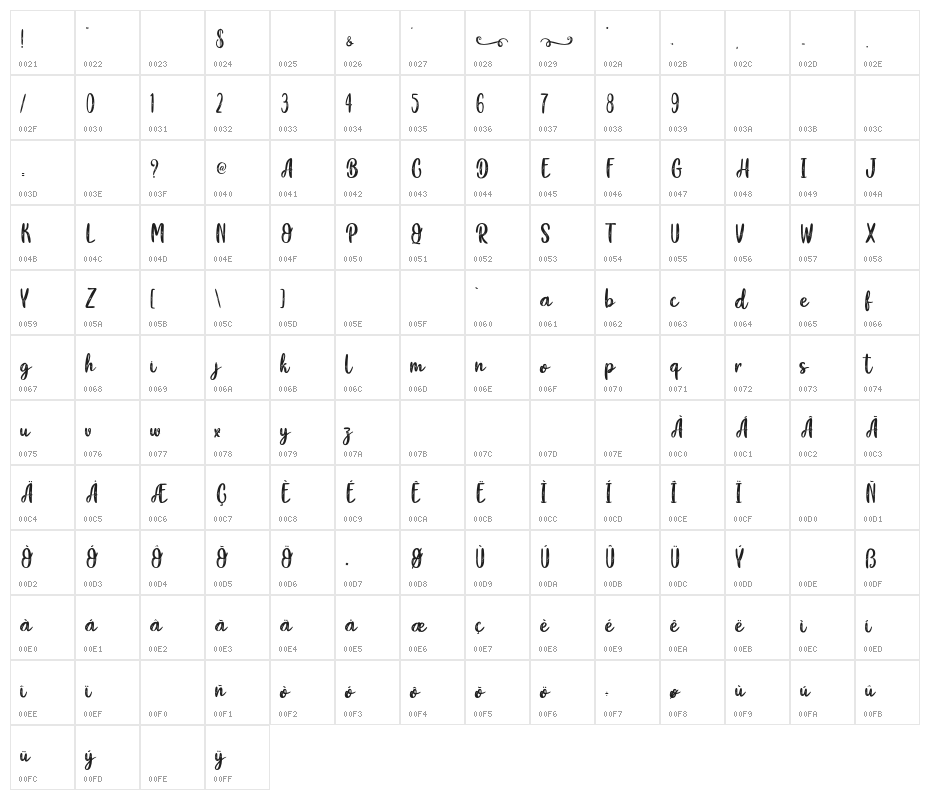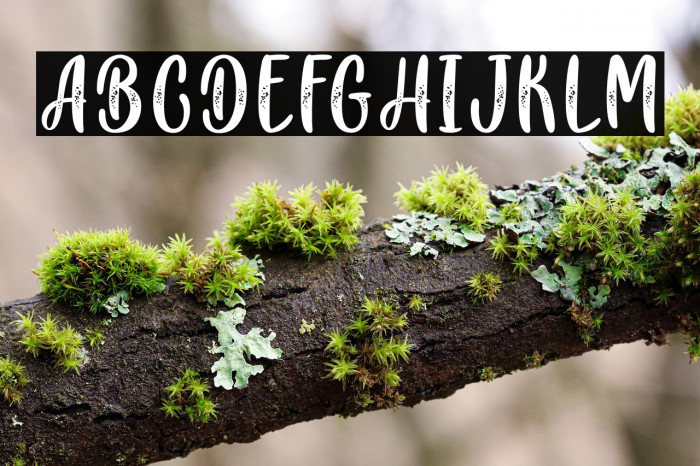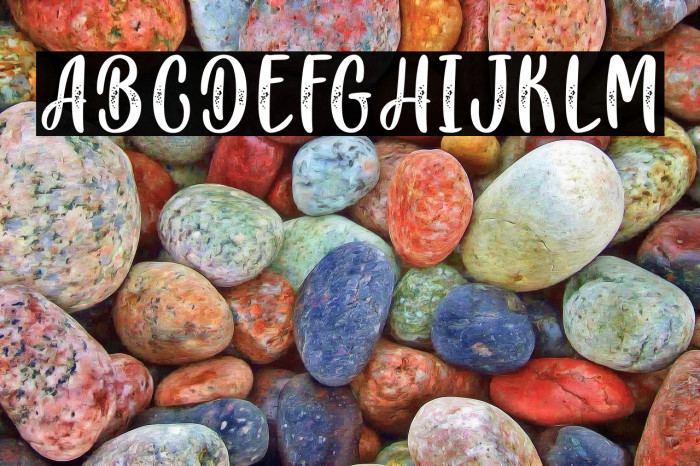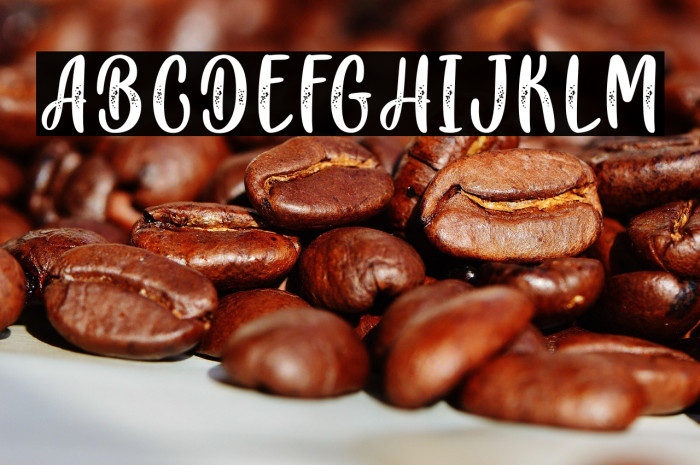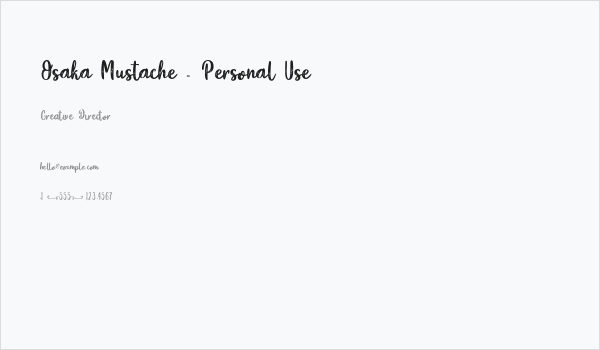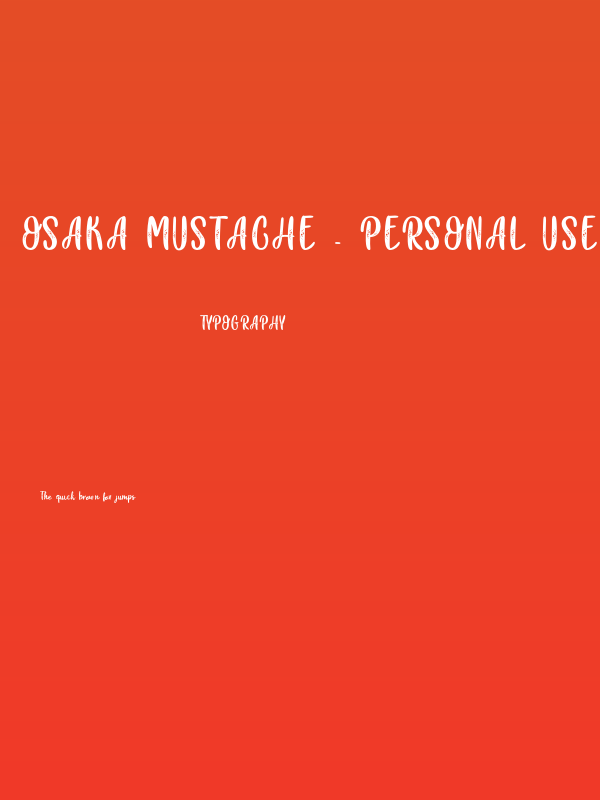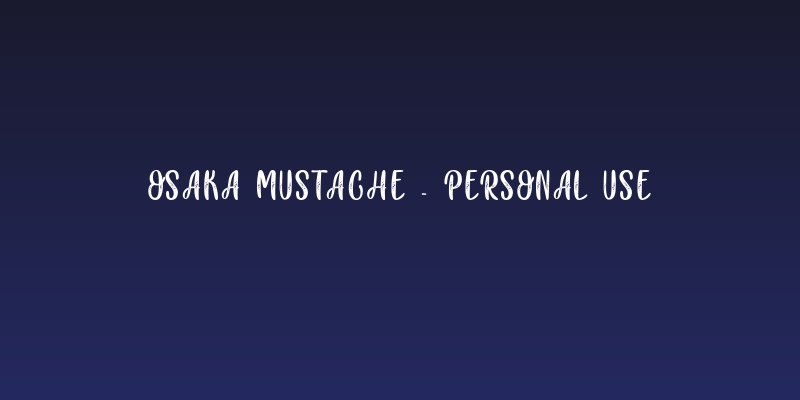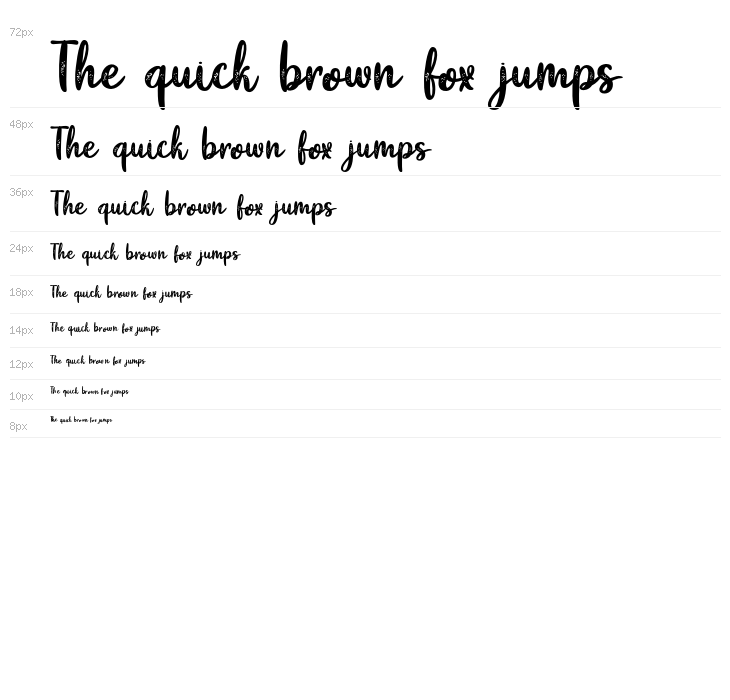
Osaka Mustache - Personal Use Font
Osaka Mustache - Personal Use Description
This font features a playful and artistic style with a brush-like texture, giving it a handcrafted appearance. The uppercase letters are bold and slightly irregular, adding a dynamic and energetic feel. The lowercase letters maintain a consistent flow, enhancing the script-like quality. Numbers and special characters are designed with the same textured effect, ensuring uniformity across all glyphs. The overall design is both decorative and expressive, making it suitable for creative projects that require a personal touch.